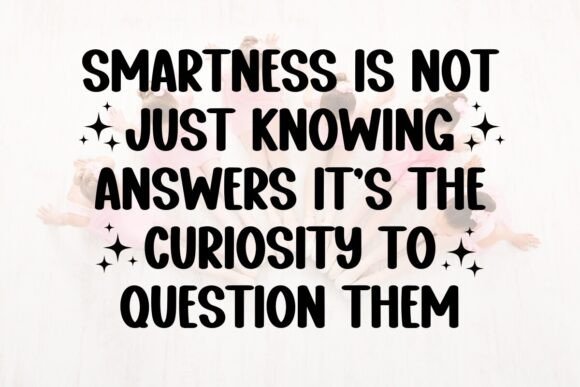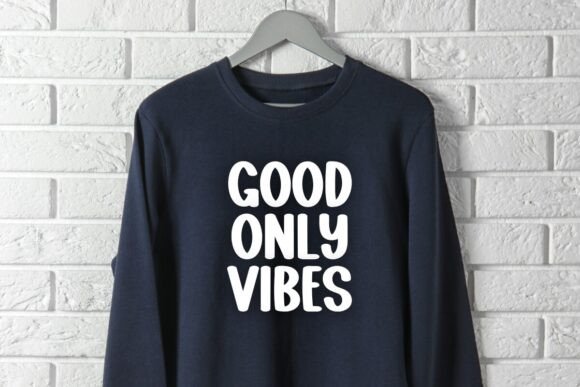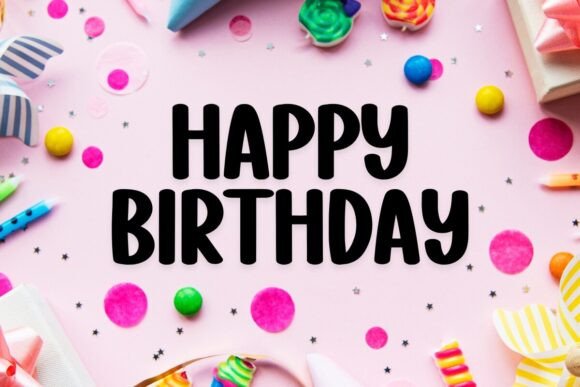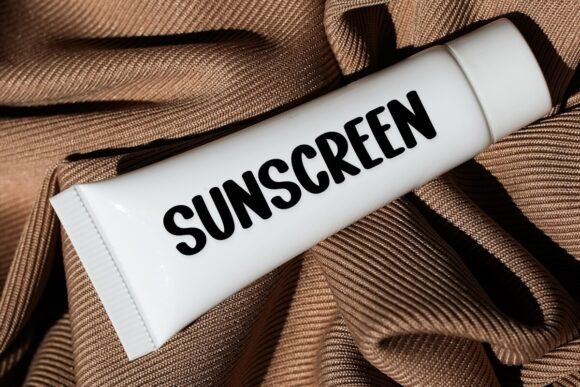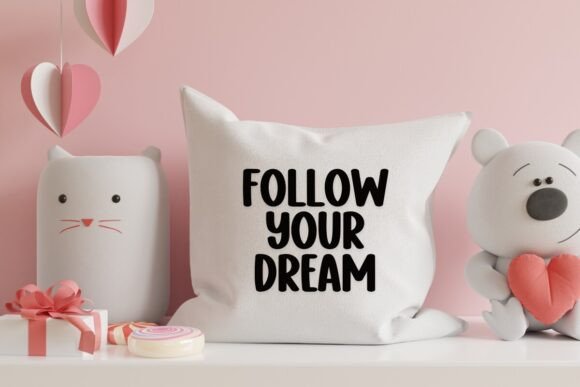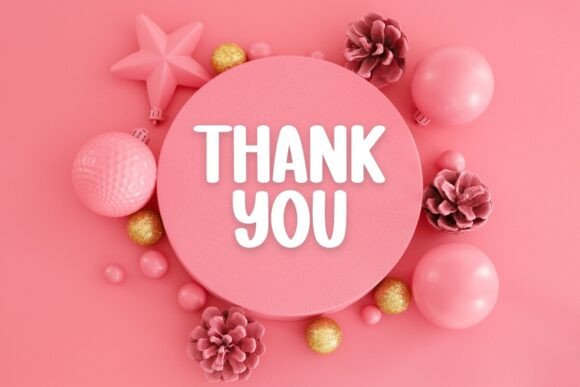
Get Ready to Groove with the Baby Dancing Font
Do you remember that moment when you finally find the perfect font to match your design vision? It’s like the music starts playing, and everything comes together in perfect harmony. For designers, this feeling is like a dream come true, and we’re excited to share with you a font that’s sure to get you moving – the Baby Dancing Font.
This beautiful handwritten font is a masterpiece of elegance, with a bold and timeless style that’s perfect for making a statement. Whether you’re working on a project that needs a touch of whimsy or a sophisticated flair, the Baby Dancing Font is sure to deliver. Its versatility makes it a valuable asset for designers who want to create spectacular designs that stand out from the crowd.
Baby Dancing Font Key Features
- Unique Characteristics: The Baby Dancing Font features playful, dancing characters that add a touch of whimsy to any design.
Baby Dancing Font Review
Overall, I was quite excited to dive into the Baby Dancing Font, but unfortunately, it didn’t quite live up to my expectations. That being said, there are a few things that I think the designers have done well:
- ✨ Unique and playful character set: The font has a great collection of quirky and cute characters that could add a fun touch to any design.
- ✨ Good contrast and legibility: The font’s letterforms have a clear and easy-to-read design, making it suitable for various text-based applications.
- ✨ Versatile: The font comes in multiple weights and styles, allowing users to choose the perfect fit for their project.
However, there are some limitations that I think need to be addressed:
- ⚠️ Limited language support: The font seems to only support basic Latin characters, which could be a problem for designers working with other languages.
- ⚠️ Some irregularities in kerning: While the font’s character set is well-designed, I noticed some issues with kerning, particularly with certain letter combinations.
- ⚠️ Not ideal for long blocks of text: The font’s playful nature and high x-height make it less suitable for lengthy text passages, where readability might be compromised.
Overall, I think the Baby Dancing Font has potential, but it needs some refinement to become a truly great font. With a bit more attention to language support, kerning, and text readability, I’d be happy to give it a higher rating.
The Baby Dancing Font is perfect for:
1. Baby shower invitations and decorations.
2. Children’s birthday party invitations and decorations.
3. Nursery decor and wall art.
4. Personalized baby gifts and keepsakes.